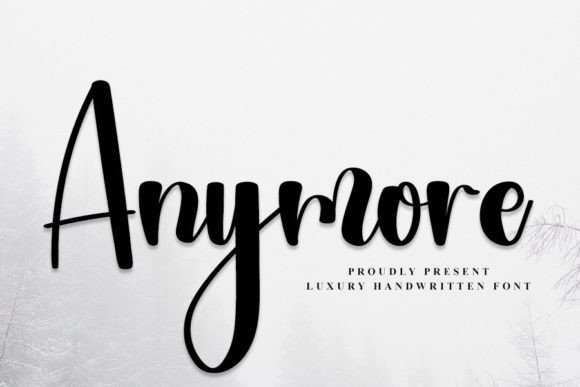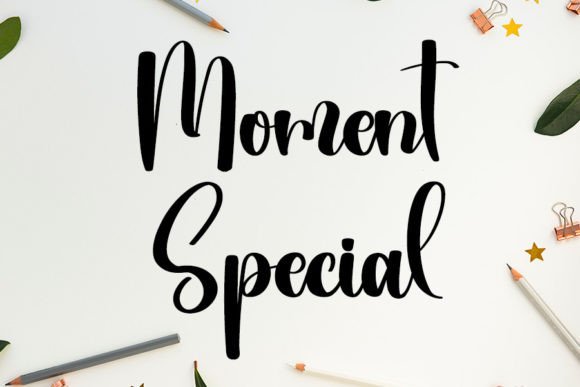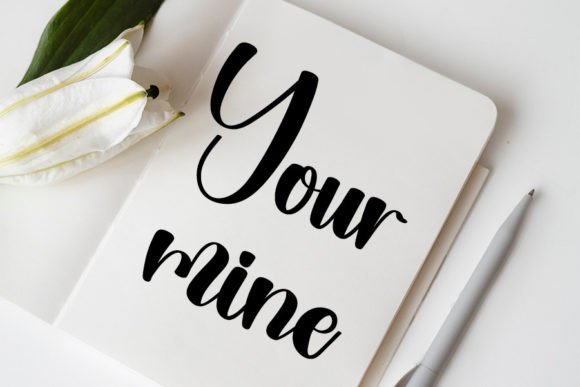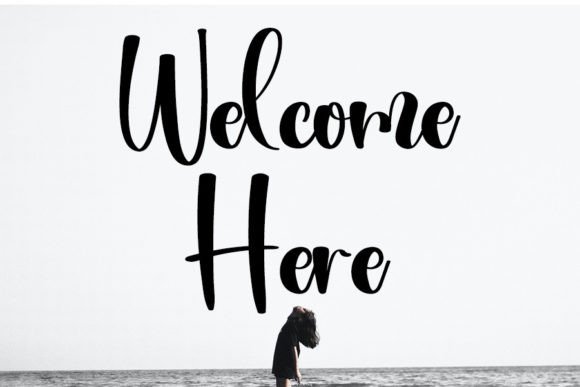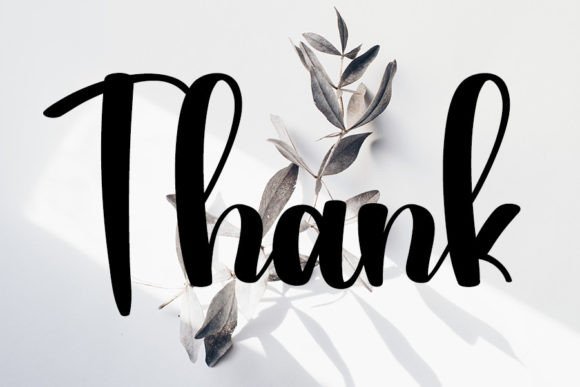
Anymore Font
Add Timeless Beauty with Anymore Handwritten Font
The Anymore Handwritten Font is a graceful and clean script that captures the essence of timeless elegance. Designed with delicate curves and a flowing structure, this font adds a refined personal touch to every design. Whether you’re creating digital content or printed materials, Anymore delivers a polished and memorable look.
Perfect for Elegant Branding and Creative Projects
Anymore is incredibly versatile and ideal for a wide range of applications. You can use it for branding, wedding invitations, social media graphics, greeting cards, and product packaging. It’s especially well-suited for boutique logos, beauty labels, and lifestyle blogs that want to express sophistication with a handwritten flair.
Because of its clarity and style, this font works beautifully as both a feature typeface and a supporting script in layered designs.
A Handwritten Script with a Refined Touch
What makes the Anymore Handwritten Font so distinctive is its perfect balance between casual flow and elegant detail. Each character has been thoughtfully designed to look handwritten, yet maintain a clean and readable structure.
Its slightly slanted posture and soft line weights give it a personal, almost romantic quality—ideal for projects that need a human touch without sacrificing polish.
Works Seamlessly Across Print and Digital Designs
Whether you’re working on printable materials like invitations and posters or digital platforms such as websites and Instagram, Anymore delivers outstanding results. It maintains its visual quality at various sizes and resolutions, ensuring your message stays both beautiful and legible.
For enhanced contrast and design balance, try pairing Anymore with minimalist serif or sans-serif fonts. This pairing brings out the elegance of the script while keeping your layout modern and clean.
Why Designers Love Anymore Handwritten Font
• Elegant, clean handwritten script with timeless charm
• Ideal for wedding materials, branding, and creative content
• Easy to read at all sizes for both print and web
• Blends well with other font styles for layered designs
Create Designs That Feel Personal and Stylish
In conclusion, the Anymore Handwritten Font is a beautiful and expressive typeface that brings warmth, style, and sophistication to your creative work. It’s designed to be flexible, readable, and above all—elegant.
If you’re searching for a font that offers both handwritten authenticity and graceful design, Anymore is the perfect fit.